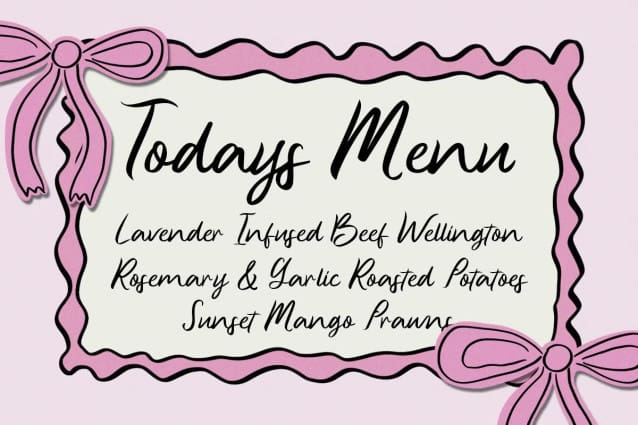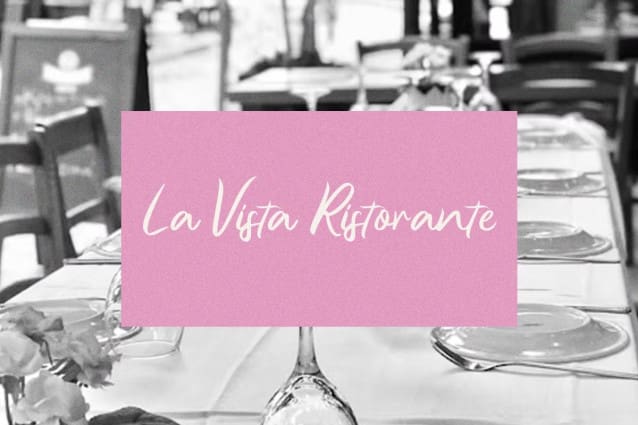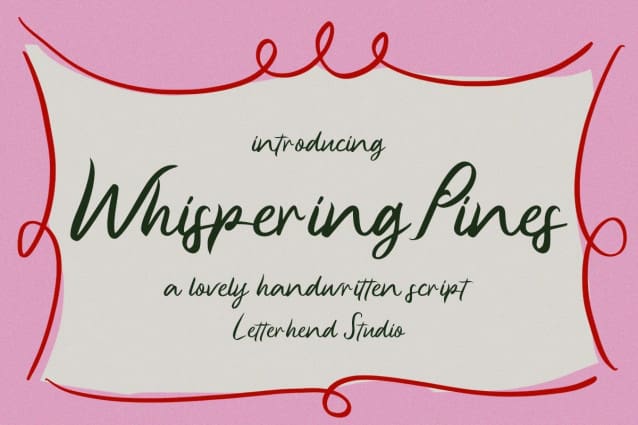
Whispering Pines Font
Whispering Pines Font is a lovely handwritten script font that exudes elegance and warmth. Its flowing, natural strokes make it perfect for adding a personal and sophisticated touch to your designs.